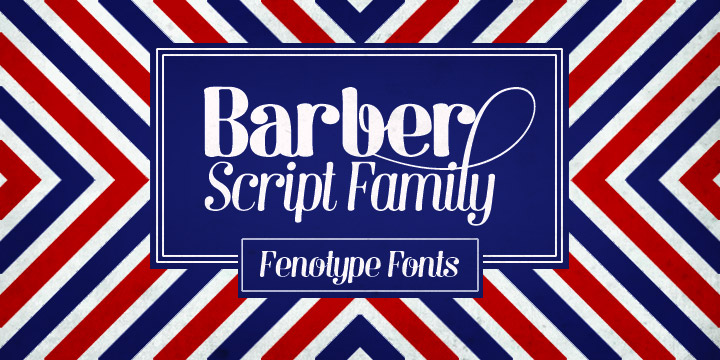
Looking for a bold and vintage-inspired typeface? Barber Font Free Download brings classic barber shop charm right into your design toolkit. With its strong, retro vibe and clean lines, this font is perfect for logos, signage, posters, and branding projects that want to evoke nostalgia with a modern twist.
Barber Font Free Download combines readability with style, featuring distinctive letterforms that catch the eye without overpowering your message. Whether you’re designing for lifestyle brands, grooming products, or vintage-themed events, this font adds authenticity and personality.
Ideal for barbershops, tattoo studios, and retro-inspired brands, Barber Font delivers a bold statement that’s both classic and contemporary.